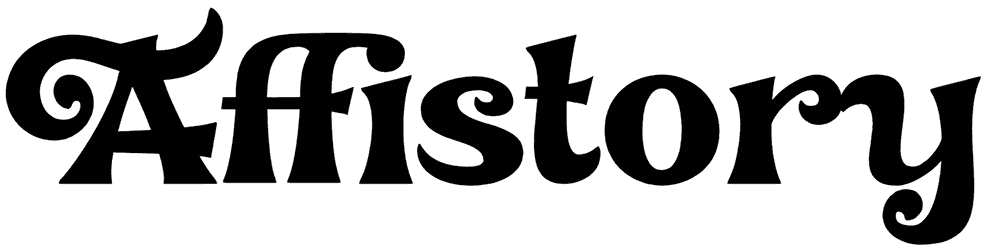
Affistory Font
There are two different types of Affistory font, simple and italic. This serif and retro font with the difference in style and the ivy lines in the uppercase and lowercase characters show that you can give natural elements to design many banners and travel campaigns and the prints on the T-shirt.